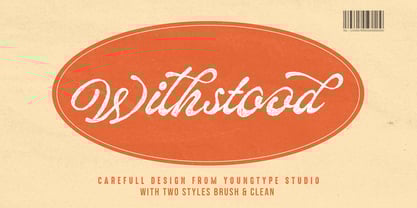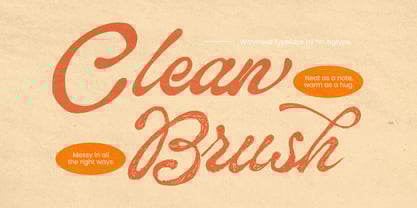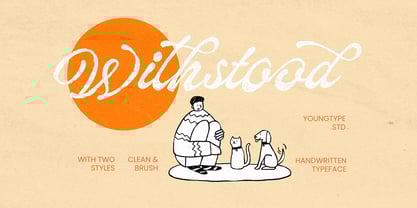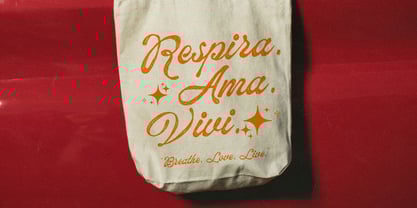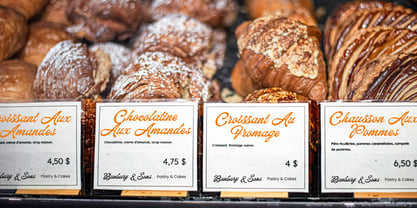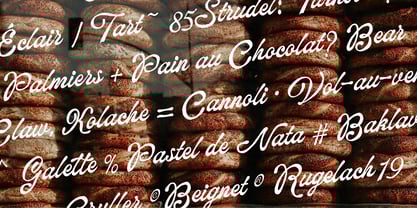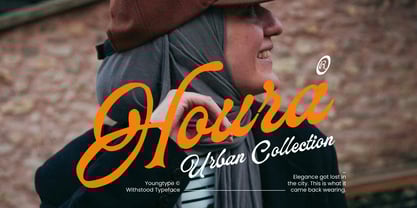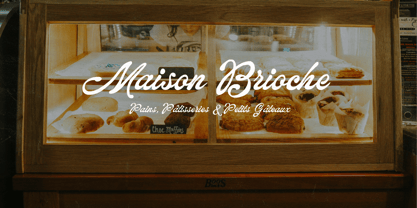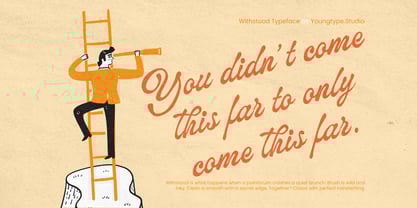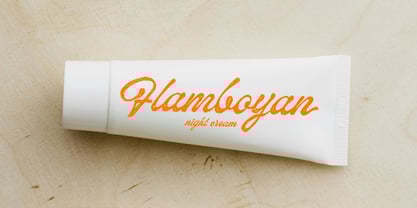
Withstood
by Youngtype
The Withstood Font Family was designed by Naufal Paramata and published by Youngtype. Withstood contains 2 styles and family package options.
Withstood is a bold and expressive hand-drawn type family that captures the energy of real brushwork with modern clarity. It features two dynamic brush styles and a clean version, offering a balance between raw, handcrafted texture and refined legibility. Whether you're going for an authentic, textured look or a polished, simplified feel, Withstood delivers personality and versatility in equal measure.
Perfect for branding, packaging, posters, or social media graphics, Withstood brings a confident, handcrafted voice to any design.
Contains full set :
• Uppercase
• Lowercase
• Ligatures
• Alternates
• Punctuation
• number
• multilingual support.